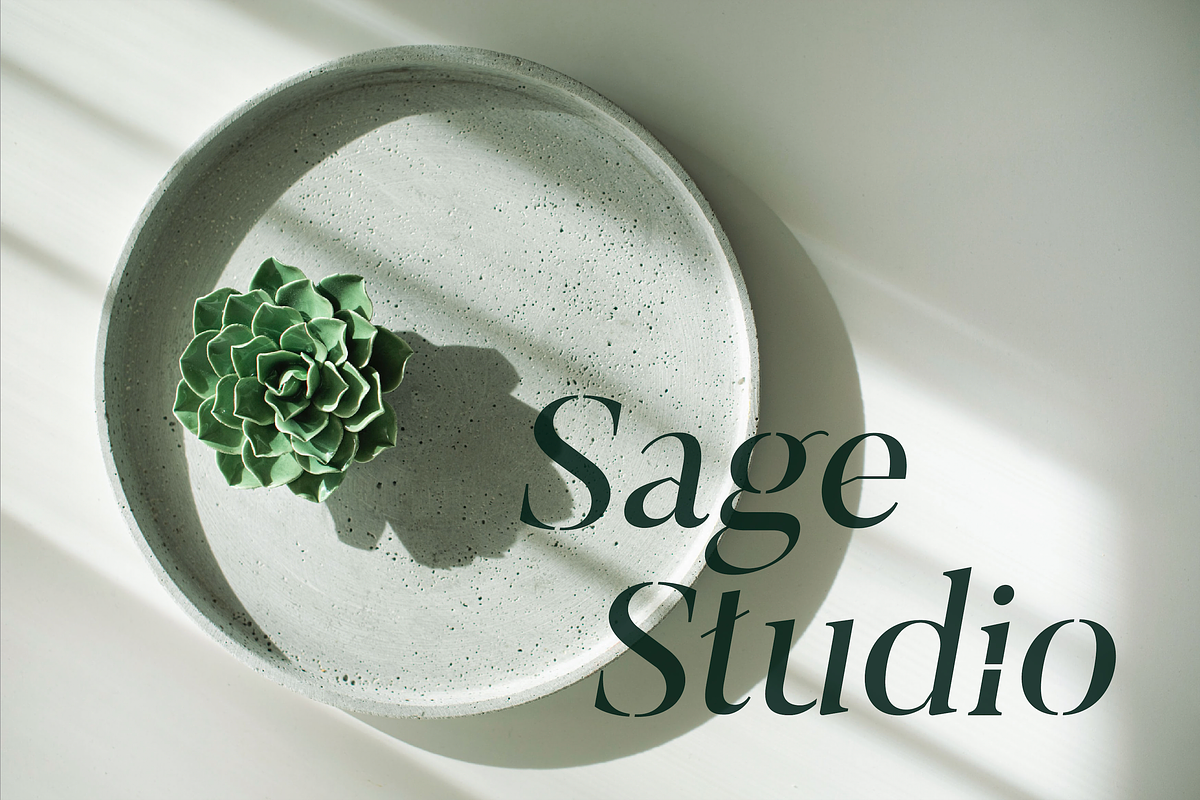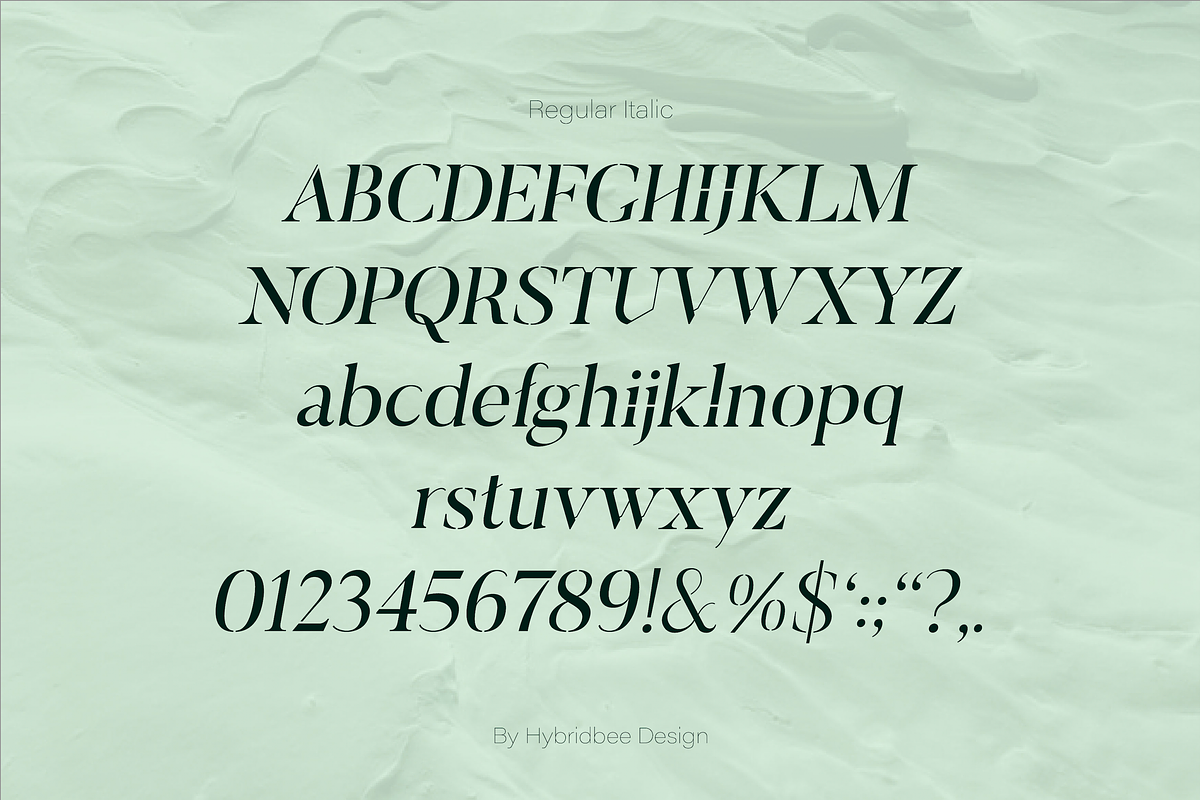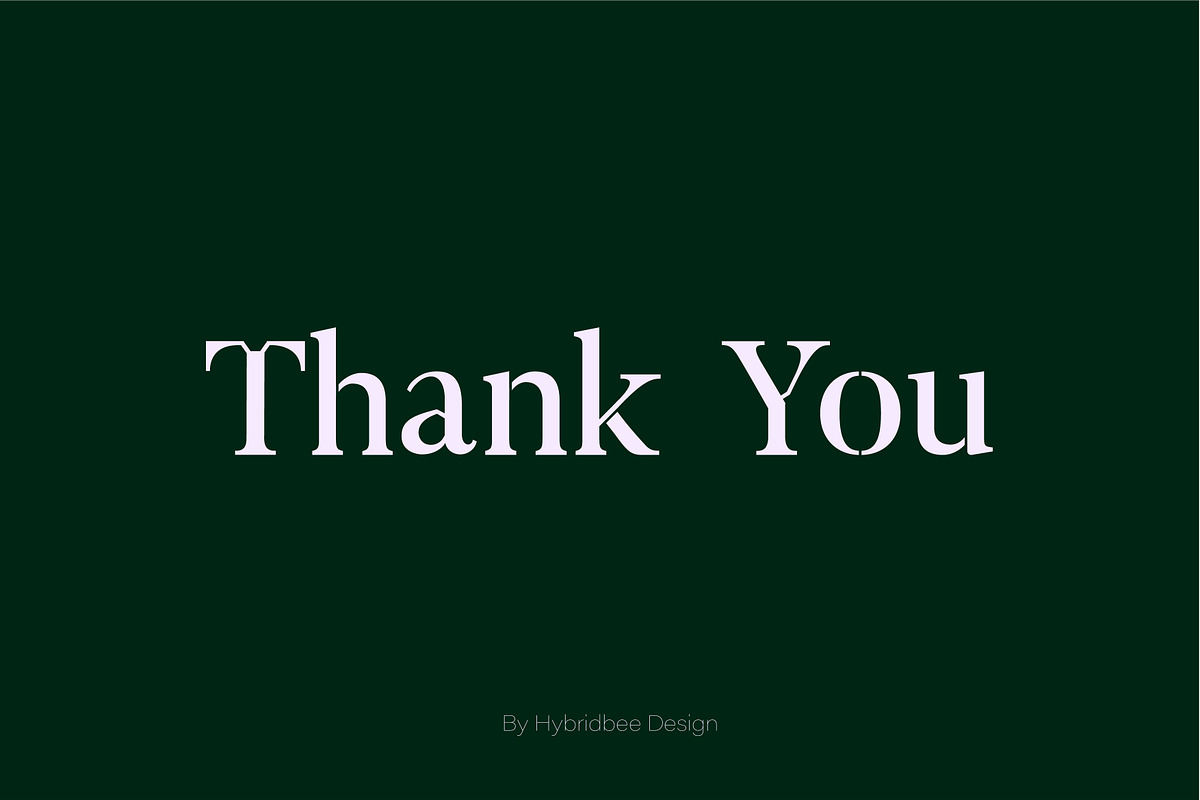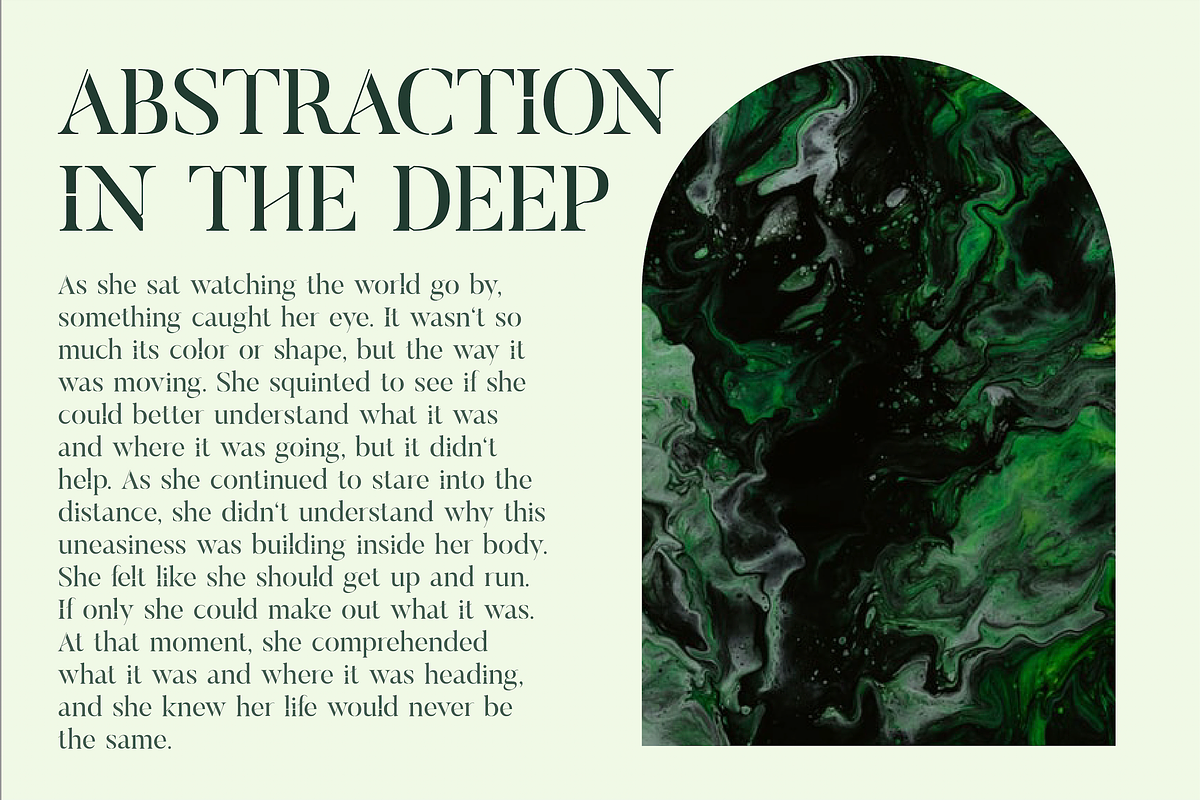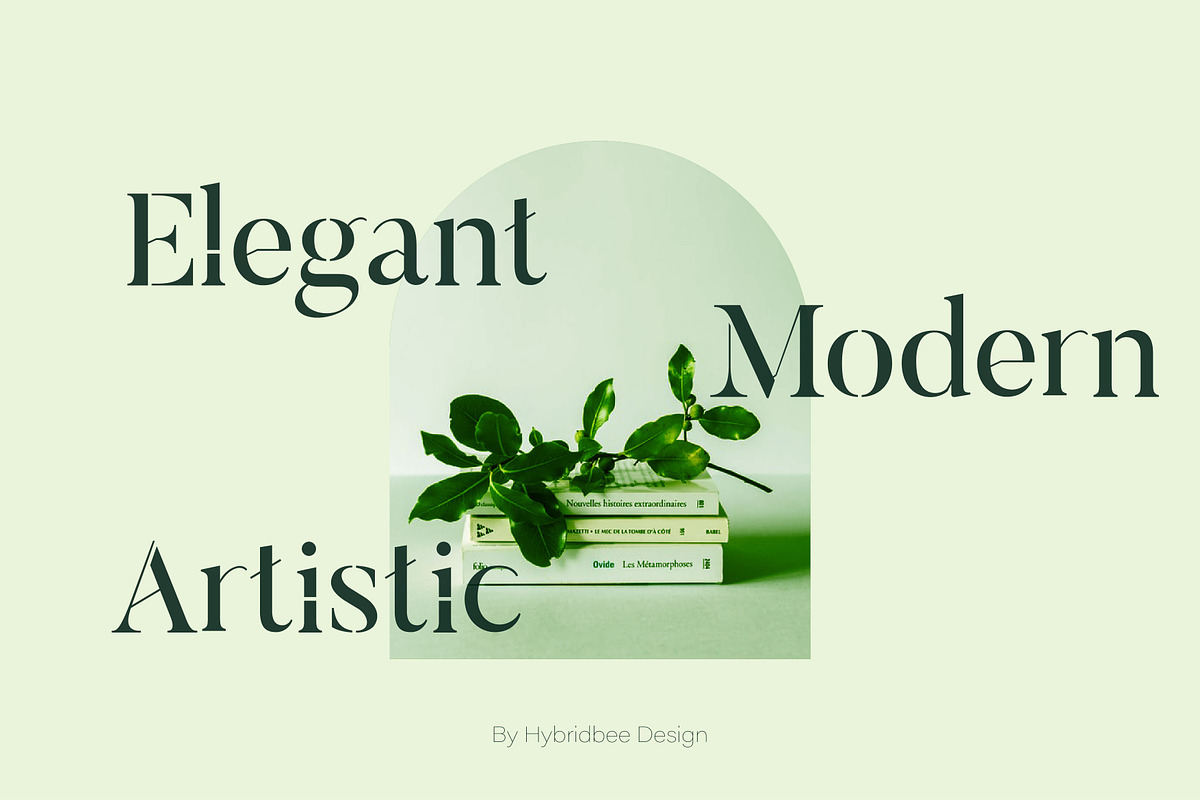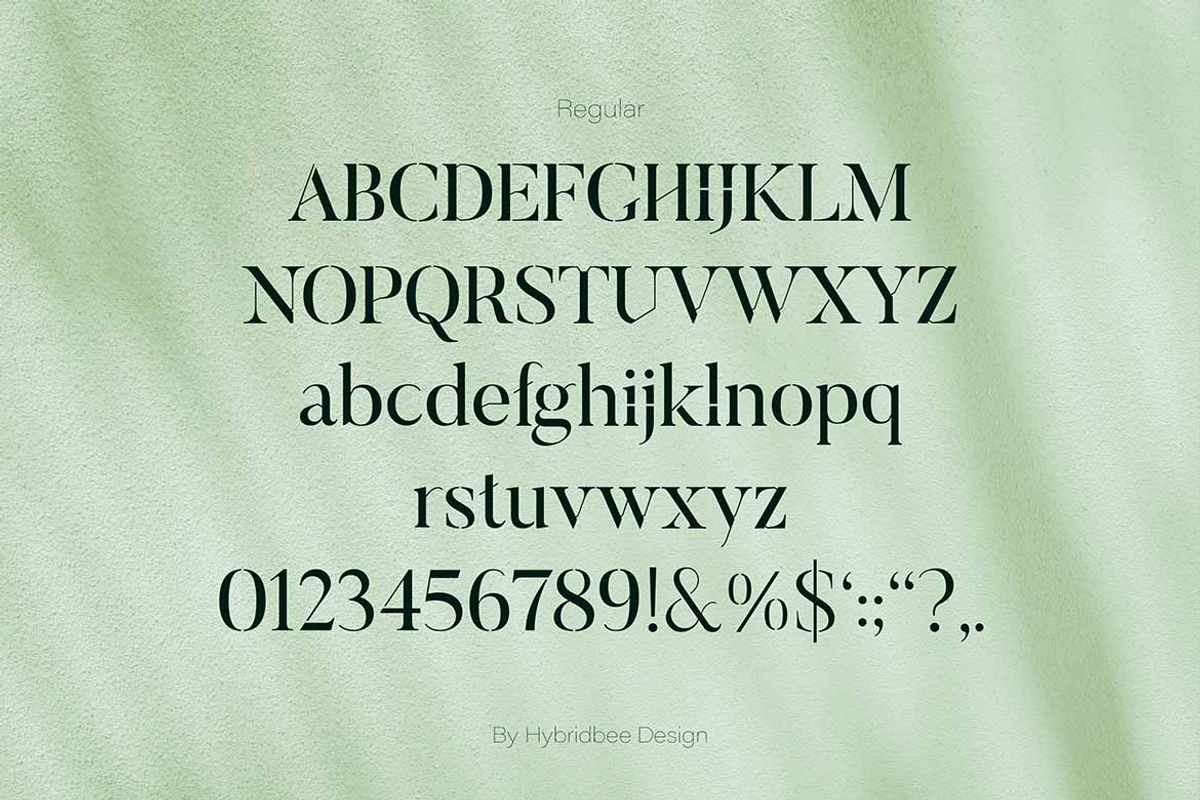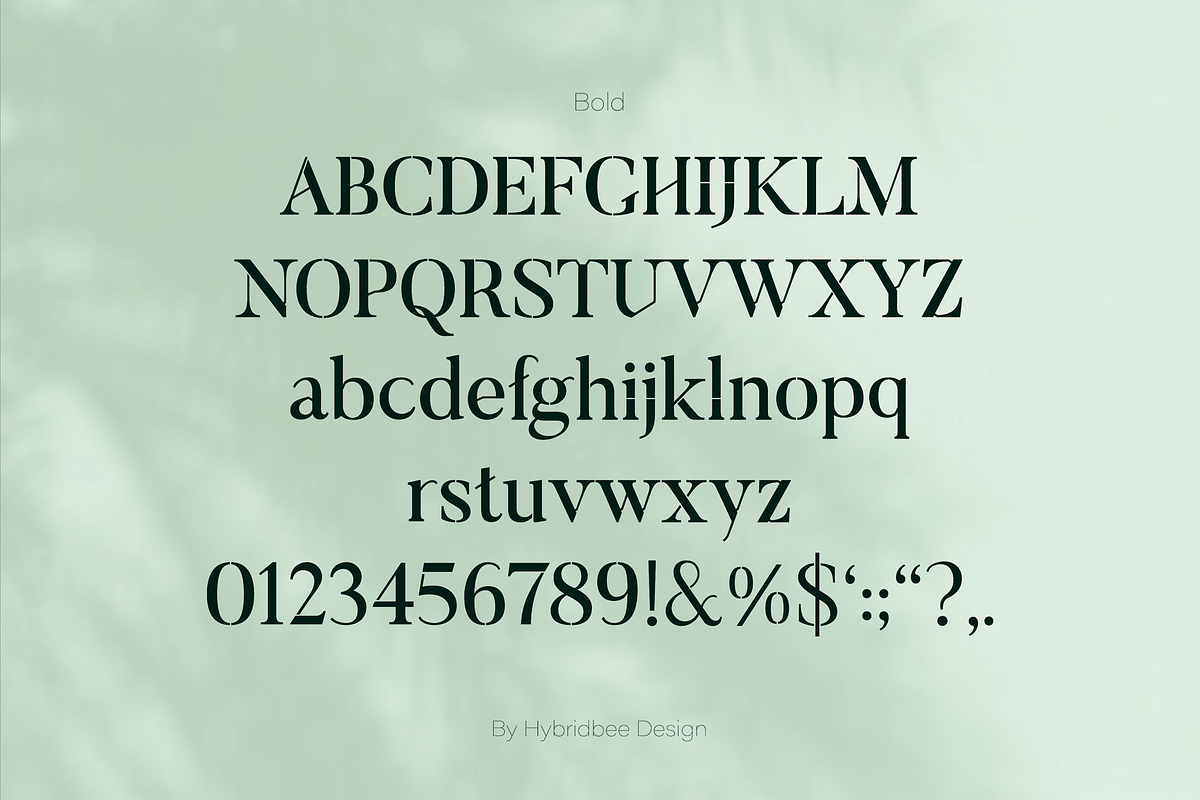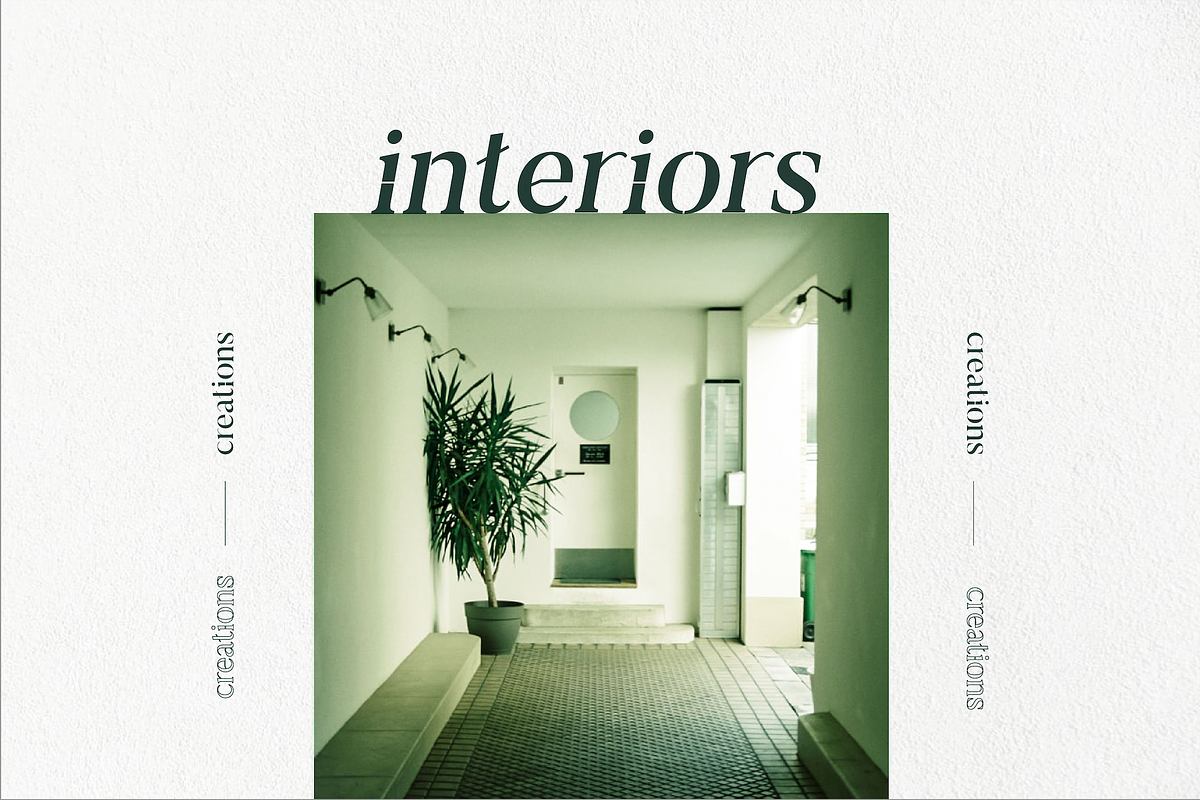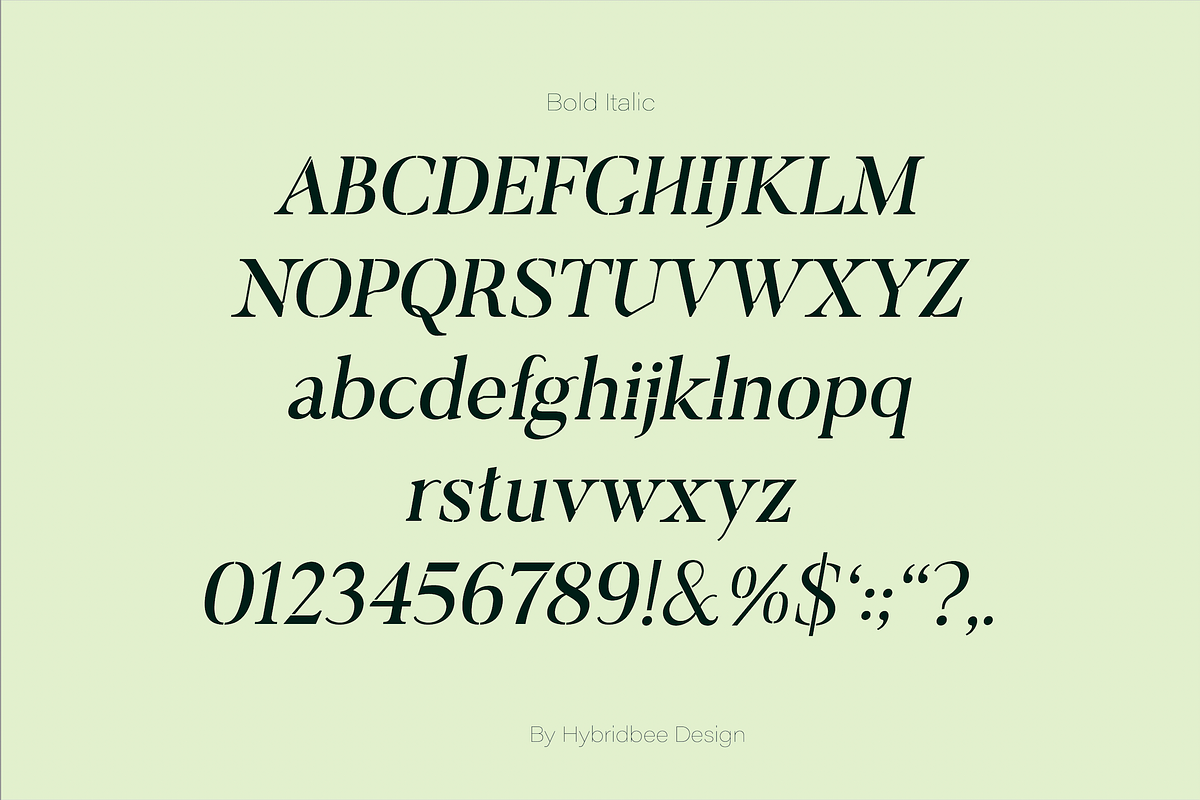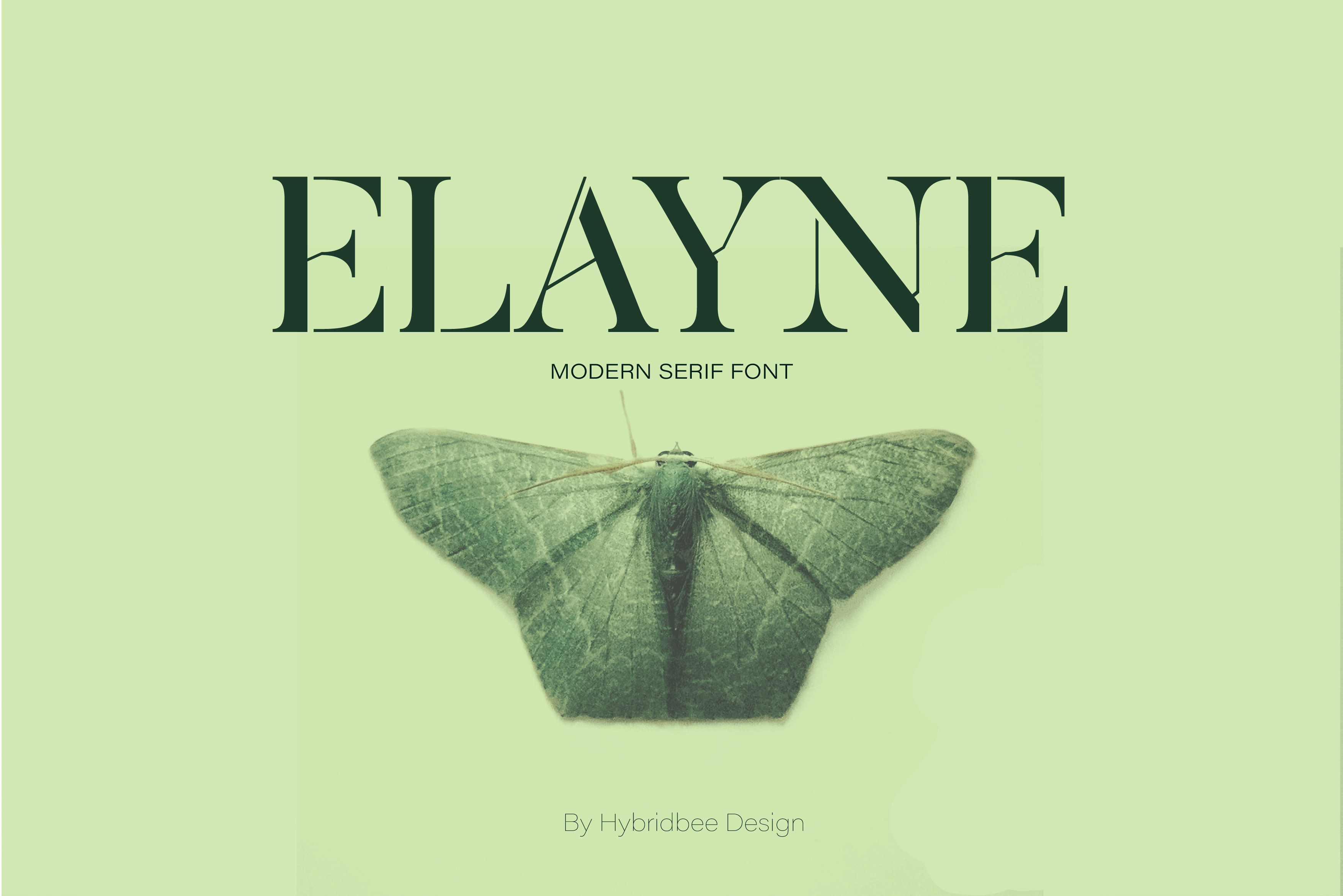
ELAYNE - Display Serif Font
ELAYNE – Display Serif font
Elayne is a display serif font with a modern, sophisticated and artistic edge. It includes uppercase letters, lowercase letters, numerals and some punctuations in regular, italic, bold and bold italic. It has a minimalistic and elegant style and can be used to create posters, headlines, branding, packaging, logo, web design, etc.